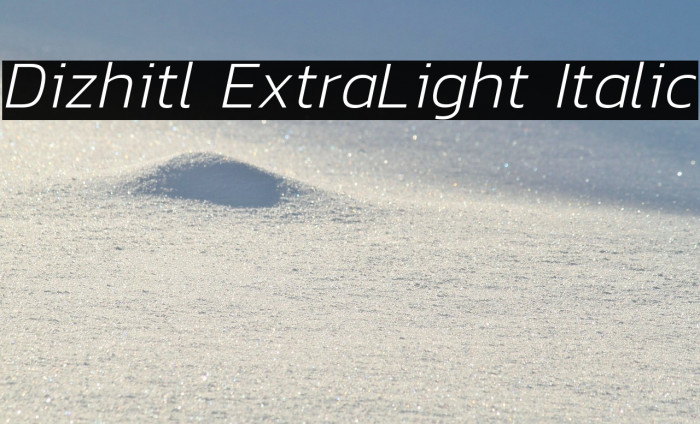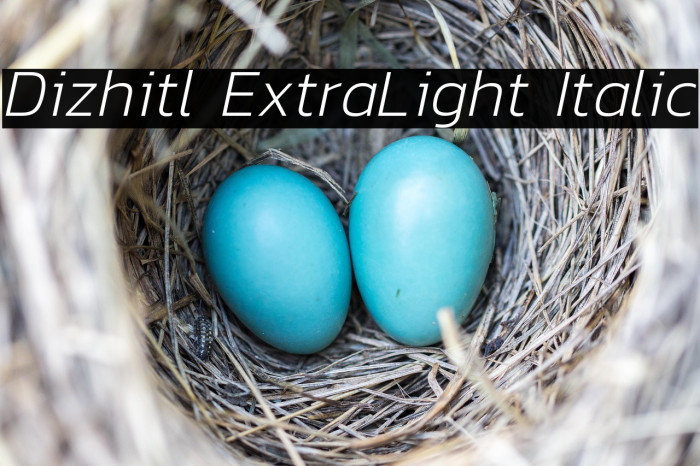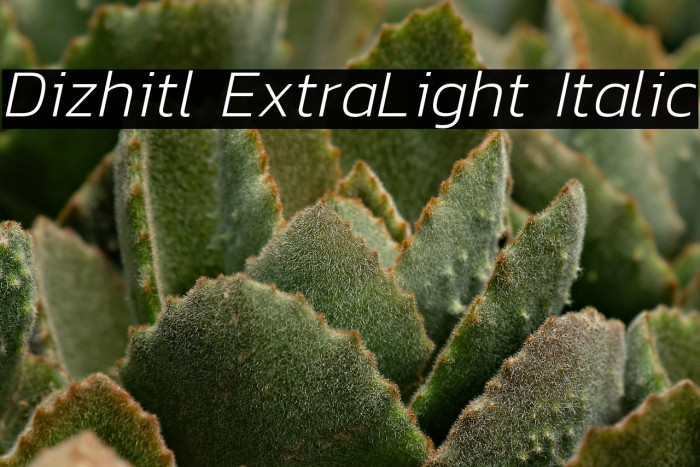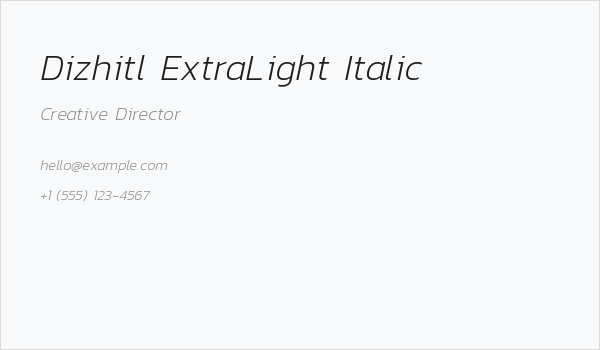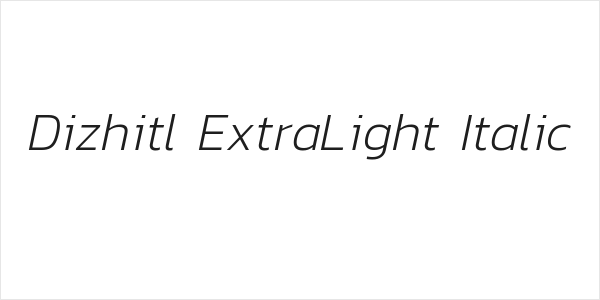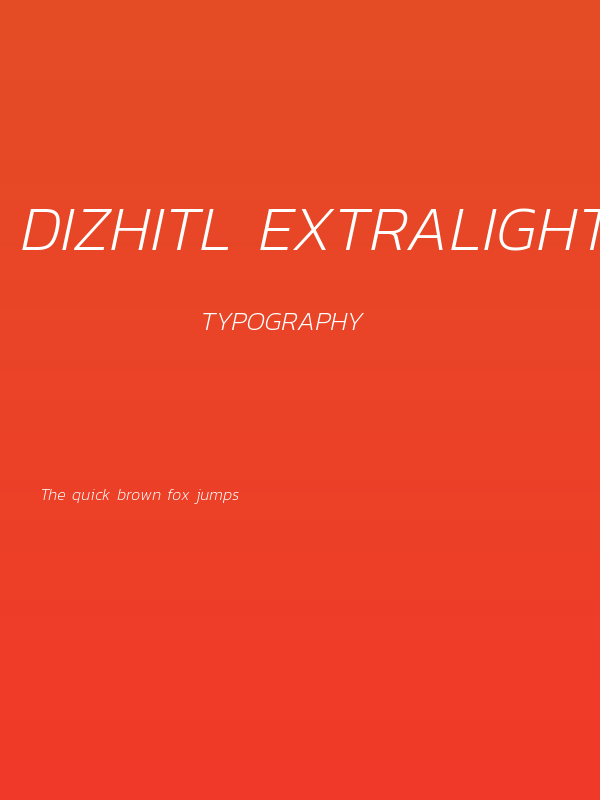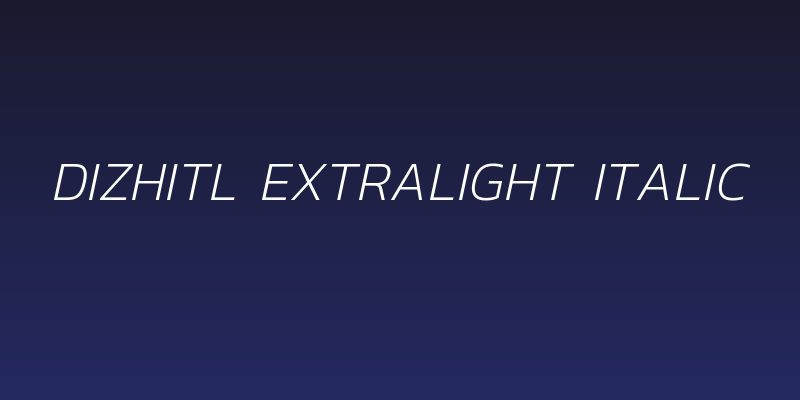
Dizhitl ExtraLight Italic Font
Dizhitl ExtraLight Italic Description
This font features a sleek and modern design with an extra-light weight, giving it an airy and elegant appearance. The italic style adds a dynamic and fluid touch, making it suitable for contemporary and sophisticated applications. The characters are slightly elongated, contributing to a sense of motion and grace. The clean lines and minimalistic approach ensure readability while maintaining a stylish aesthetic. The font's design is versatile, making it ideal for both digital and print media.